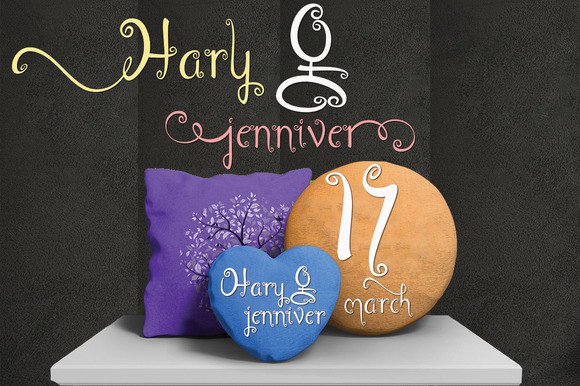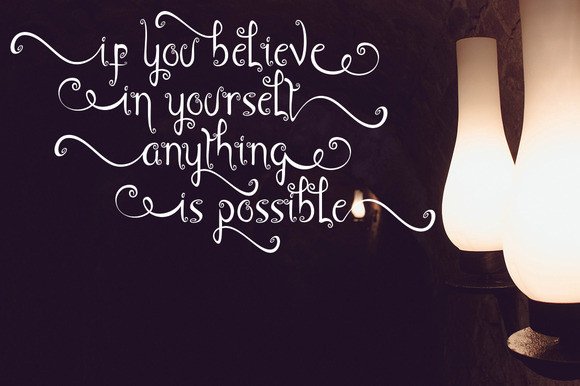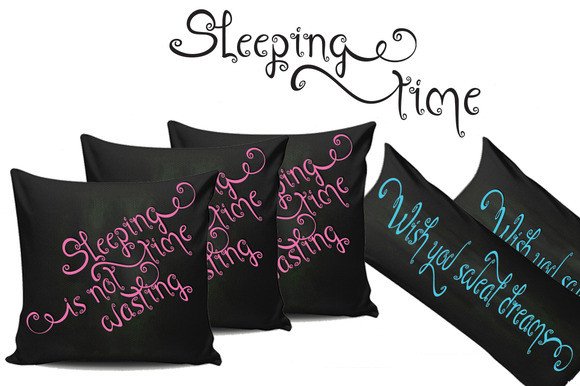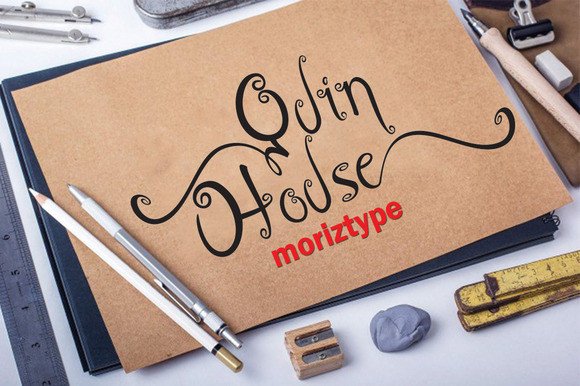
Discover the Unique Charm of Amsterday Font
In the world of typography, few fonts manage to stand out with their distinctive character and versatility. Amsterday Font is one such typography that has been specially designed to cater to the diverse needs of design projects. With its unique features and extensive range of glyphs, Amsterday Font is a treasure trove for designers and crafters looking to add a touch of elegance and sophistication to their creations.
A Typography Like No Other
What sets Amsterday Font apart is its different character, specially crafted to meet the demands of various design projects. The font’s top line has been meticulously designed separately, giving it a unique flair that is hard to find in other typographies. This distinctive feature makes Amsterday Font an excellent choice for designers who want to create something that stands out from the crowd.
Amsterday Font is not just limited to one or two uses; it is incredibly versatile and can be used for a wide range of purposes. Whether you are working on titles, signatures, logos, correspondences, wedding invitations, letterheads, signage’s, labels, newsletters, posters, badges, or any other design project, Amsterday Font is up to the task. Its flexibility makes it an indispensable tool in the arsenal of designers and crafters.
Extensive Glyphs for Endless Possibilities
One of the most impressive features of Amsterday Font is that it features 481 glyphs. This extensive range of glyphs provides designers with endless possibilities to experiment with their designs. Whether you are looking to create a simple yet elegant design or something more complex and intricate, Amsterday Font has got you covered.
For designers and crafters, finding the right font can often be a daunting task. However, with Amsterday Font, you can rest assured that you have found a typography that meets all your needs. Its unique character, versatility, and extensive range of glyphs make it the perfect choice for anyone looking to create stunning designs.
Use Amsterday Font to Elevate Your Designs
Amsterday Font is more than just a typography; it’s a tool that can elevate your designs to new heights. Its distinctive character and extensive features make it an excellent choice for a wide range of projects. Here are some ways you can use Amsterday Font to enhance your designs:
- Logos and Branding: Create a lasting impression with a unique and memorable logo that stands out.
- Wedding Invitations: Add a touch of elegance and sophistication to your wedding invitations.
- Posters and Flyers: Grab attention with bold and eye-catching posters and flyers.
- Signage’s and Labels: Create clear and visually appealing signage’s and labels that communicate your message effectively.
- Digital Content: Enhance your digital content, such as newsletters and social media posts, with a professional and stylish typography.
In conclusion, Amsterday Font is a unique and versatile typography that is designed to meet the diverse needs of design projects. Its distinctive character, extensive range of glyphs, and flexibility make it an excellent choice for designers and crafters. Whether you are working on a simple design project or something more complex, Amsterday Font is sure to exceed your expectations. So why wait? Explore the endless possibilities of Amsterday Font and take your designs to new heights.